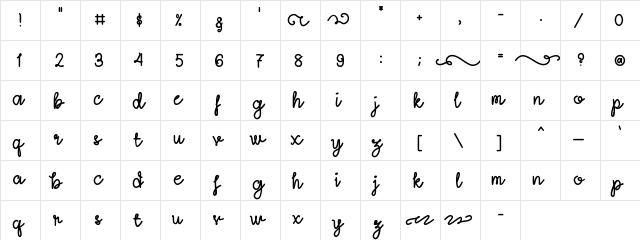
Lightheart Script Regular Font Preview
| Designer | The Branded Quotes |
Design Context for Lightheart Script Regular Typeface
Lightheart Script Regular brings a calligraphic fluidity to the page — its connecting strokes and expressive curves give it an unmistakably human quality. The delicate stroke weight brings airiness and refinement to layouts.
Font Pairing: Combine Lightheart Script Regular with a simple geometric sans for maximum contrast — the tension between flowing curves and clean structure is a classic typographic pairing.
Pro Tip: Pair Lightheart Script Regular with a clean sans-serif for supporting text. The contrast between fluid script and geometric structure creates an elegant typographic hierarchy.